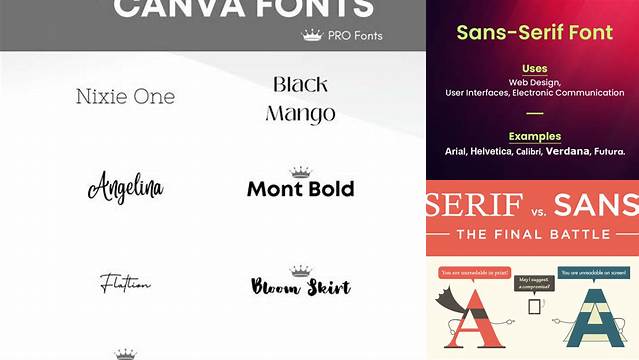
Sans Serif Font Examples: A Comprehensive Guide
Hey guys! Ever wondered about those sleek, modern-looking fonts that seem to be everywhere these days? Chances are, you're thinking of sans serif fonts. These fonts, characterized by their lack of serifs (the small decorative strokes at the end of letters), are a staple in modern design, and for good reason! They offer a clean, minimalist aesthetic that's perfect for a wide range of applications. In this comprehensive guide, we'll dive deep into the world of sans serif fonts, exploring their history, characteristics, and some standout examples that you can use in your own projects. So, buckle up and get ready to discover the power of simplicity in typography!
What Exactly Are Sans Serif Fonts?
Let's start with the basics. Sans serif fonts, as the name suggests (from the French “sans,” meaning “without”), are typefaces that do not have the small extending features called “serifs” at the end of strokes. This is in contrast to serif fonts, which do have these little embellishments. Sans serif fonts are often perceived as cleaner, more modern, and more legible on screens, making them a popular choice for digital interfaces and displays. Their simplicity lends them a contemporary feel, making them ideal for brands aiming for a fresh and approachable image. The absence of serifs also contributes to a more uniform stroke weight throughout the letterforms, enhancing readability, especially at smaller sizes or on low-resolution screens. The history of sans serif fonts is relatively recent compared to serif fonts, with their popularity surging in the 20th century alongside the rise of modernism and functional design. Think about it: from the signage in airports to the text on your smartphone, sans serif fonts are all around us, quietly shaping our visual experience.
The History and Evolution of Sans Serif Fonts
The journey of sans serif fonts is a fascinating one, deeply intertwined with the evolution of typography and design. While serif fonts have a rich history stretching back centuries, sans serif fonts are a relatively modern invention. The first commercially available sans serif typeface, known as Akzidenz-Grotesk, emerged in the late 19th century. However, it wasn't until the 20th century that sans serif fonts truly took off, fueled by the Bauhaus movement and the rise of modernist design principles. Bauhaus, with its emphasis on simplicity, functionality, and geometric forms, championed sans serif typefaces as the epitome of modern typography. Designers like Herbert Bayer and Paul Renner (creator of Futura) played pivotal roles in popularizing sans serif fonts and establishing their place in the design world. The clean lines and unadorned forms of sans serif typefaces perfectly complemented the modernist aesthetic, which valued clarity and efficiency above all else. As technology advanced, the digital age further cemented the importance of sans serif fonts. Their legibility on screens made them ideal for websites, apps, and other digital interfaces. Today, sans serif fonts are a cornerstone of contemporary design, a testament to their enduring appeal and versatility.
Key Characteristics of Sans Serif Fonts
What exactly makes sans serif fonts so distinctive? The most obvious characteristic, of course, is the absence of serifs. But there's more to it than that! Sans serif fonts often feature a more uniform stroke weight compared to serif fonts, where the lines can vary in thickness. This gives them a cleaner, more consistent appearance. Additionally, sans serif fonts tend to have a more geometric and streamlined letterform, contributing to their modern aesthetic. The x-height (the height of the lowercase “x”) is often larger in sans serif typefaces, which can improve readability, particularly at smaller sizes. The spacing between letters and words is also carefully considered in sans serif fonts to ensure optimal clarity and visual harmony. Different sans serif fonts can have distinct personalities, ranging from the geometric precision of Futura to the humanist warmth of Helvetica. Understanding these characteristics can help you choose the right sans serif typeface for your specific project and desired aesthetic.
Popular Sans Serif Font Families
Alright, let's dive into some specific examples! The world of sans serif fonts is vast and varied, with countless typefaces to choose from. However, some families have achieved iconic status and are widely used across various design disciplines. Helvetica, perhaps the most famous sans serif of all time, is renowned for its neutrality and versatility. Arial, a common alternative to Helvetica, is another widely used option. Futura, with its geometric forms, exudes a sense of modernity and precision. Open Sans, a humanist sans serif, is known for its readability on screens. Lato, another popular choice, offers a warm and friendly feel. These are just a few of the many outstanding sans serif fonts available. Each typeface has its own unique personality and characteristics, making it suitable for different applications. Exploring these popular families is a great way to start building your typographic toolkit.
Helvetica: The King of Sans Serif
No discussion of sans serif fonts would be complete without a deep dive into Helvetica. Often hailed as the “king” of sans serifs, Helvetica is arguably the most recognizable and widely used typeface in the world. Developed in 1957 by Swiss typeface designer Max Miedinger, Helvetica's clean, neutral, and highly legible design quickly made it a favorite among designers. Its versatility is unmatched, making it suitable for everything from corporate branding to signage systems. Major brands like BMW, American Airlines, and Panasonic have all embraced Helvetica, a testament to its enduring appeal and timeless quality. However, Helvetica's ubiquity has also made it a subject of debate. Some designers argue that its neutrality can lead to a lack of personality, while others champion its clarity and efficiency. Regardless of your stance, there's no denying Helvetica's significant impact on the world of typography and design. Studying Helvetica is like studying the fundamentals of sans serif font design itself. It provides a solid foundation for understanding the principles of clean lines, balanced proportions, and optimal readability.
Arial: The Ubiquitous Alternative to Helvetica
Arial is a sans serif font that often gets compared to Helvetica, and for good reason! In fact, it's often seen as a kind of doppelganger to the famous Swiss typeface. Arial was designed in 1982 by Patricia Saunders and Robin Nicholas for Monotype, and it was specifically created to be a metric compatible alternative to Helvetica for early computer systems. This means that Arial was designed to take up roughly the same amount of space as Helvetica when used in documents, which was a big deal back in the day when memory and storage were limited. While Arial shares many visual similarities with Helvetica – both are clean, neutral sans serifs – there are some subtle differences that typography enthusiasts can spot. For example, Arial's strokes are a bit thicker, and the terminals (the ends of the strokes) are often cut off at a more severe angle. Whether you prefer Helvetica or Arial is often a matter of personal taste, but it's important to be aware of the nuances between these two ubiquitous sans serif fonts.
Futura: The Geometric Sans Serif Masterpiece
If you're looking for a sans serif font that exudes modernity and geometric precision, look no further than Futura. Designed in 1927 by Paul Renner, Futura is a typeface based on geometric shapes, particularly the circle, square, and triangle. This gives it a distinctly architectural and streamlined appearance, making it a popular choice for brands that want to project a sense of innovation and sophistication. Futura's clean lines and minimalist aesthetic made it a favorite of the Bauhaus movement, and it has been used extensively in everything from corporate logos to movie posters. Think of brands like Volkswagen and Nike – they've both used Futura to great effect. One of the things that makes Futura so striking is its consistent stroke weight and its emphasis on perfect geometric forms. This gives it a very clean and modern feel, but it can also make it feel a bit cold or impersonal in some contexts. However, when used thoughtfully, Futura can be a powerful tool for creating visually compelling and memorable designs. Exploring sans serif fonts like Futura helps to appreciate the diversity within the style.
Open Sans: A Friendly and Legible Choice
Open Sans is a sans serif font designed by Steve Matteson of Ascender Fonts. Released in 2011, it's a humanist sans serif font designed with readability in mind. This means it's exceptionally clear and easy to read, especially on screens. Open Sans has a slightly wider stance and a more open appearance than some other sans serifs, which contributes to its legibility. Its neutral but friendly appearance makes it a versatile choice for a wide range of applications, from websites and apps to print materials. One of the reasons Open Sans has become so popular is that it's a free and open-source font, meaning it can be used and distributed freely. This has made it a favorite among web developers and designers who are looking for a high-quality, readily available typeface. Open Sans is a great example of how sans serif fonts can be both functional and aesthetically pleasing. It's a workhorse typeface that gets the job done without sacrificing visual appeal. When considering sans serif fonts, Open Sans stands out as a reliable and approachable option.
Lato: A Warm and Approachable Sans Serif
Lato is a sans serif font designed by Łukasz Dziedzic, a Polish designer. Released in 2010, Lato has quickly become a popular choice for designers looking for a typeface that's both modern and approachable. The word "Lato" means "Summer" in Polish, and the font's warm and friendly personality reflects this. Lato has semi-rounded details, which give it a sense of warmth and humanity. It's also designed to be highly legible in a variety of sizes and weights, making it suitable for both body text and headlines. Like Open Sans, Lato is available under the Open Font License, meaning it's free to use and distribute. This has contributed to its widespread adoption. Lato strikes a nice balance between being contemporary and approachable, making it a versatile choice for a wide range of design projects. When exploring sans serif fonts, Lato is a great option to consider if you want a typeface with a bit of personality and warmth.
Other Notable Sans Serif Font Examples
Beyond the big names like Helvetica, Arial, Futura, Open Sans, and Lato, there's a whole world of other amazing sans serif fonts out there just waiting to be discovered! Exploring these lesser-known gems can help you find the perfect typeface for your unique project and give your designs a distinctive edge. Some notable examples include: Montserrat, a geometric sans serif inspired by the signage in the Montserrat neighborhood of Buenos Aires; Roboto, a modern and versatile sans serif developed by Google for the Android operating system; and Nunito, a rounded sans serif that exudes a friendly and approachable vibe. Each of these typefaces has its own unique personality and characteristics, making them suitable for different design applications. The key is to experiment and explore the vast landscape of sans serif fonts to find the ones that truly resonate with your vision. Don't be afraid to venture beyond the familiar and discover new typographic treasures!
Sans Serif vs. Serif Fonts: What's the Difference?
Okay, so we've talked a lot about sans serif fonts, but how do they stack up against their serif counterparts? The most obvious difference, as we've already discussed, is the presence or absence of serifs – those little decorative strokes at the ends of letters. But the differences go beyond mere aesthetics. Serif fonts are often associated with tradition, authority, and formality. They tend to have a more classic and elegant feel, making them popular choices for books, newspapers, and other print materials. Sans serif fonts, on the other hand, are generally perceived as more modern, clean, and minimalist. They're often favored for digital interfaces, websites, and branding that aims for a contemporary look. The choice between serif and sans serif ultimately depends on the specific project and the desired message. Consider the context, the target audience, and the overall tone you want to convey. Understanding the nuances between these two font categories is crucial for effective typography. When selecting sans serif fonts, it's helpful to compare them directly with serif options to make the best choice.
When to Use Sans Serif Fonts
So, when is it a good idea to reach for a sans serif font? Generally speaking, sans serif fonts are excellent choices for projects that require a modern, clean, and approachable aesthetic. They're particularly well-suited for digital interfaces, such as websites, apps, and presentations, where their legibility on screens is a major advantage. Sans serif fonts are also a popular choice for branding, especially for companies that want to project a sense of innovation, simplicity, and clarity. Think tech companies, startups, and modern businesses. In print, sans serif typefaces can work well for headlines, captions, and other short blocks of text. However, for large blocks of body text, serif fonts are often preferred due to their enhanced readability in printed form. Of course, these are just general guidelines, and there are always exceptions to the rule. The best way to decide when to use a sans serif is to experiment and see what works best for your specific project.
The Psychology of Sans Serif Fonts
Did you know that fonts can actually evoke certain emotions and associations? It's true! Typography plays a significant role in how a design is perceived, and sans serif fonts are no exception. Generally, sans serif fonts are associated with modernity, clarity, and efficiency. Their clean lines and minimalist forms project a sense of straightforwardness and trustworthiness. This is why they're often used by companies that want to convey a sense of innovation and professionalism. However, the specific emotions evoked by a sans serif can vary depending on the particular typeface. A geometric sans serif like Futura might feel more technical and precise, while a humanist sans serif like Open Sans might feel warmer and more approachable. Understanding the psychology of fonts can help you make more informed design choices and ensure that your typography aligns with your message and brand. When choosing sans serif fonts, consider the emotional impact you want to create.
Legibility and Readability of Sans Serif Fonts
One of the key advantages of sans serif fonts is their legibility, particularly on screens. Legibility refers to how easily individual letters can be distinguished from one another, while readability refers to how easily a block of text can be read and understood. Sans serif fonts often excel in legibility due to their clean, simple letterforms and consistent stroke weights. This makes them ideal for digital environments, where screen resolution can sometimes affect the clarity of text. However, readability is a more complex issue. While sans serif fonts can be highly legible, long blocks of text set in a sans serif typeface may not be as readable as the same text set in a serif font. This is because the serifs can help the eye track across the line of text. For this reason, it's important to consider the context and intended use when choosing a sans serif typeface. For short blocks of text, headlines, and digital interfaces, sans serif fonts are often an excellent choice. But for lengthy documents or books, a serif font may provide a more comfortable reading experience.
Pairing Sans Serif Fonts with Other Typefaces
Choosing a typeface is just the first step – knowing how to pair it with other fonts is crucial for creating visually harmonious and effective designs. Sans serif fonts are incredibly versatile and can be paired with a wide range of other typefaces, both serif and sans serif. One classic approach is to pair a sans serif headline with a serif body text. This creates a visual contrast that draws the eye to the headline while providing a comfortable reading experience for the body copy. Another option is to pair two different sans serif fonts together, perhaps using a bolder sans serif for headings and a lighter one for body text. This can create a sense of visual hierarchy and interest. When pairing fonts, it's important to consider the overall tone and personality you want to convey. Do the fonts complement each other? Do they create the right mood? Experimentation is key! Don't be afraid to try different combinations until you find the perfect pairing for your project. The art of pairing sans serif fonts with others is a key skill for any designer.
How to Choose the Right Sans Serif Font for Your Project
With so many sans serif fonts to choose from, how do you narrow down your options and select the perfect one for your project? Here are a few key factors to consider:
- The project's purpose: What is the font going to be used for? A website? A logo? A brochure? The intended use will influence your choice.
- The target audience: Who are you trying to reach? A youthful audience might respond well to a modern, geometric sans serif, while a more traditional audience might prefer a humanist sans serif.
- The brand personality: What kind of message do you want to convey? A luxury brand might opt for a sophisticated sans serif like Futura, while a friendly brand might choose Open Sans.
- Legibility and readability: How will the font perform in different sizes and contexts? Test it out to make sure it's legible and readable.
- Pairing: How will the font pair with other typefaces? Think about the overall typographic palette.
By considering these factors, you can make a more informed decision and choose a sans serif font that truly enhances your design.
The Role of Sans Serif Fonts in Web Design
Sans serif fonts play a pivotal role in web design. Their clean, legible nature makes them a natural fit for on-screen reading. The digital realm favors clarity and ease of use, and sans serifs often provide just that. When designing websites, considering the user experience is paramount, and typography is a key element. Sans serif fonts generally render well across different browsers and devices, ensuring a consistent look and feel for all users. This is especially crucial in today's multi-device world. Many popular websites and web applications utilize sans serif typefaces for their body text, headings, and navigation elements. From minimalist websites to content-heavy blogs, sans serif fonts offer a versatile solution for web typography. However, it's essential to choose a sans serif that suits the website's overall design and purpose. A clean, modern sans serif might be perfect for a tech company's website, while a more humanist sans serif could be a better fit for a non-profit organization. Selecting the right sans serif fonts can make a significant impact on the success of your website.
Using Sans Serif Fonts in Branding and Logo Design
In the world of branding and logo design, sans serif fonts have become a go-to choice for many companies. Their clean, modern aesthetic often conveys a sense of innovation, sophistication, and approachability. A well-chosen sans serif typeface can be a powerful tool for communicating a brand's values and personality. Many iconic logos feature sans serif fonts, from tech giants like Google and Apple to fashion brands like Calvin Klein and Adidas. These logos demonstrate the versatility of sans serif fonts in branding. When designing a logo, it's crucial to consider the font's legibility, scalability, and overall impact. A sans serif logo should be easily recognizable and memorable, whether it's displayed on a business card or a billboard. The choice of sans serif can also influence how a brand is perceived. A geometric sans serif might convey a sense of precision and efficiency, while a humanist sans serif could suggest warmth and creativity. Choosing the right sans serif fonts is a critical part of creating a strong brand identity.
The Future of Sans Serif Fonts: Trends and Innovations
The world of typography is constantly evolving, and sans serif fonts are no exception. As technology advances and design trends shift, we can expect to see new and exciting innovations in the realm of sans serif typefaces. One trend is the increasing popularity of variable fonts, which allow for greater flexibility and customization. Variable fonts can have multiple axes of variation, such as weight, width, and slant, allowing designers to fine-tune the typeface to their exact needs. Another trend is the continued exploration of geometric and minimalist sans serifs, reflecting a desire for clean, modern aesthetics. We're also seeing a growing interest in humanist sans serif fonts that balance clarity with a sense of warmth and personality. The future of sans serif fonts is likely to be shaped by both technological advancements and evolving design preferences. As designers continue to push the boundaries of typography, we can expect to see a diverse and dynamic landscape of sans serif typefaces.
Common Mistakes to Avoid When Using Sans Serif Fonts
While sans serif fonts are incredibly versatile, there are some common pitfalls to avoid. One mistake is overusing a single sans serif typeface across an entire design. This can lead to a monotonous and visually uninteresting result. It's important to create visual hierarchy by using different weights, sizes, and styles of fonts. Another mistake is choosing a sans serif that is too generic or lacks personality. With so many great sans serif typefaces available, there's no need to settle for a bland option. Sans serif fonts also need adequate spacing to maintain legibility. Avoid setting the type too tightly, as this can make it difficult to read. Conversely, too much spacing can make the text feel disjointed. Another common mistake is not considering the context of use. A sans serif font that looks great on screen might not be the best choice for a printed document. By avoiding these common mistakes, you can ensure that you're using sans serif typefaces effectively.
Resources for Finding and Using Sans Serif Fonts
If you're ready to start exploring the world of sans serif fonts, there are plenty of resources available to help you find and use them effectively. Font foundries like MyFonts, Adobe Fonts, and Hoefler&Co offer a wide selection of high-quality typefaces. Websites like Google Fonts and Font Squirrel provide access to free sans serif fonts that can be used in both personal and commercial projects. Online typography tutorials and articles can help you learn about the principles of typography and how to choose the right sans serif fonts for your needs. Software like Adobe Photoshop, Illustrator, and InDesign offer powerful tools for working with typefaces. Don't be afraid to experiment and explore! The more you work with sans serif fonts, the better you'll become at using them effectively. Finding the right sans serif fonts is a journey, and these resources can help you along the way.
The Importance of Kerning and Leading in Sans Serif Typography
When working with sans serif fonts, two crucial aspects of typography come into play: kerning and leading. Kerning refers to the adjustment of space between individual letter pairs, while leading (pronounced “led-ding”) refers to the vertical space between lines of text. Proper kerning ensures that the letters in a word appear evenly spaced and visually balanced. Sans serif fonts, with their uniform stroke weights, can sometimes require more careful kerning than serif fonts. Pay attention to letter pairs like "AV," "WA," and "To," where the natural spacing may need adjustment. Leading is equally important for readability. Adequate leading allows the eye to easily track from one line of text to the next. Too little leading can make the text feel cramped, while too much can make it feel disjointed. The optimal leading often depends on the typeface, font size, and line length. Mastering kerning and leading is essential for creating professional and legible sans serif fonts typography.
Exploring the Different Weights and Styles of Sans Serif Fonts
Sans serif fonts come in a variety of weights and styles, each with its own unique personality and impact. Font weight refers to the thickness of the strokes, ranging from light to bold. A light sans serif can feel delicate and airy, while a bold sans serif commands attention and conveys strength. Font styles include variations like italics, condensed, and extended. Italics add emphasis and can create a sense of elegance or informality. Condensed sans serifs are narrower, allowing you to fit more text in a limited space, while extended sans serifs are wider and can create a more dramatic effect. When choosing a sans serif font, consider the different weights and styles available. A typeface family with a wide range of options gives you greater flexibility and control over your typography. You can use different weights and styles to create visual hierarchy, emphasize key information, and add visual interest to your designs. Exploring the full range of sans serif fonts styles is crucial for effective communication.
How Sans Serif Fonts Contribute to Visual Hierarchy
Visual hierarchy is the arrangement of design elements to guide the viewer's eye and emphasize important information. Sans serif fonts can be powerful tools for creating visual hierarchy in your designs. By using different sizes, weights, and styles of sans serif typefaces, you can establish a clear order of importance. For example, you might use a large, bold sans serif for headlines, a smaller, lighter sans serif for subheadings, and a regular-weight sans serif for body text. This creates a clear visual distinction between different levels of information. Sans serif fonts can also be combined with other typographic techniques, such as color, spacing, and alignment, to further enhance visual hierarchy. A well-designed visual hierarchy makes it easier for viewers to scan and understand your content. When using sans serif fonts, think carefully about how you can use them to create a clear and effective visual structure.
The Use of Negative Space in Sans Serif Typography
Negative space, also known as white space, is the empty area around and between design elements. It's a crucial element in any design, and it plays a significant role in sans serif fonts typography. Adequate negative space around letters, words, and lines of text can significantly improve readability and visual appeal. Sans serif fonts, with their clean, simple forms, often benefit from generous negative space. This allows the letters to breathe and prevents the text from feeling cramped or overwhelming. When setting type in a sans serif typeface, pay attention to the letter spacing, word spacing, and line height. Adjust these elements to create a comfortable reading experience. Negative space can also be used to create visual emphasis and draw attention to specific words or phrases. By strategically using negative space, you can enhance the impact of your sans serif fonts typography and create more visually engaging designs.
Creating a Mood with Sans Serif Fonts: Examples and Techniques
As we've discussed, sans serif fonts can evoke a wide range of emotions and associations. By carefully choosing a sans serif typeface, you can create a specific mood or atmosphere in your designs. For example, a geometric sans serif like Futura might convey a sense of modernity, precision, and efficiency. This type of font is often used for technology companies and brands that want to project a cutting-edge image. A humanist sans serif font, like Open Sans or Lato, can create a more friendly and approachable mood. These typefaces have a slightly warmer and more organic feel, making them suitable for brands that want to connect with their audience on a personal level. To create a specific mood with sans serif fonts, consider the font's weight, style, and overall personality. Experiment with different combinations of typefaces, colors, and layouts to achieve the desired effect. The art of creating mood with sans serif typography is about understanding the nuances of each typeface.
The Impact of Screen Resolution on Sans Serif Font Rendering
In the digital age, the way a sans serif font renders on screen is a crucial consideration. Screen resolution, measured in pixels per inch (PPI), can significantly impact the clarity and legibility of typefaces. Lower-resolution screens can sometimes cause sans serif fonts to appear blurry or pixelated, particularly at smaller sizes. This is because the fine details of the letterforms may not be rendered accurately. Higher-resolution screens, on the other hand, offer a much sharper and clearer display, allowing sans serif fonts to render more faithfully. When designing for the web or other digital media, it's essential to choose sans serif typefaces that are well-suited for screen rendering. Some fonts are specifically designed to perform well on screens, with optimized letterforms and spacing. Testing your designs on different devices and screen resolutions is also a good practice to ensure optimal readability. Understanding the impact of screen resolution on sans serif fonts rendering helps create a better user experience.
Sans Serif Fonts in Print vs. Digital Media: Best Practices
While sans serif fonts are widely used in both print and digital media, there are some best practices to keep in mind for each context. In print, sans serif fonts can work well for headlines, subheadings, and short blocks of text. However, for lengthy body text, serif fonts are often preferred due to their enhanced readability in printed form. The serifs help guide the eye across the page, making it easier to read long passages. In digital media, sans serif fonts are generally an excellent choice for both headlines and body text. Their clean, simple letterforms render well on screens, and their legibility is often superior to serif fonts in digital environments. When designing for the web, consider using web-safe sans serif fonts that are widely available and render consistently across different browsers and devices. Also, pay attention to the font size and line height to ensure optimal readability on screen. Adapting your approach to sans serif fonts in print vs digital ensures the best results.
Advanced Techniques for Working with Sans Serif Fonts
For designers looking to take their sans serif fonts typography to the next level, there are several advanced techniques to explore. One technique is using stylistic alternates, which are alternate versions of certain letters or characters within a typeface. Stylistic alternates can add a touch of personality or visual interest to your designs. Another technique is using ligatures, which are special characters that combine two or more letters into a single glyph. Ligatures can improve readability and create a more elegant look. Microtypography, the art of fine-tuning the details of typography, can also significantly enhance the appearance of sans serif fonts. This includes adjusting kerning, tracking, and word spacing to achieve optimal visual balance and readability. Exploring these advanced techniques can help you create truly exceptional sans serif fonts typography and elevate your designs.
Common Misconceptions About Sans Serif Fonts Debunked
There are several common misconceptions about sans serif fonts that are worth debunking. One misconception is that sans serif fonts are always modern and minimalist. While it's true that many sans serifs have a contemporary feel, there are also humanist and more traditional sans serif typefaces. Another misconception is that sans serif fonts are only suitable for digital media. While they excel on screens, sans serif typefaces can also be used effectively in print, especially for headlines and short blocks of text. Another misconception is that all sans serif fonts are created equal. In reality, there's a vast range of quality and design among sans serif typefaces. Some are well-designed and highly legible, while others are poorly crafted and can detract from the overall design. By debunking these misconceptions, we can gain a more nuanced understanding of the versatility and capabilities of sans serif fonts.
The Ethical Considerations of Using Sans Serif Fonts
In the world of typography, ethical considerations are becoming increasingly important. When using sans serif fonts, it's essential to be mindful of accessibility, readability, and cultural appropriateness. Accessibility refers to designing for people with disabilities, including those with visual impairments. Choosing sans serif fonts with good legibility and contrast is crucial for ensuring that your designs are accessible to everyone. Readability, as we've discussed, is another key ethical consideration. Select sans serif fonts that are easy to read in the intended context, and avoid using overly decorative or unconventional typefaces. Cultural appropriateness is about being sensitive to cultural norms and preferences. A font that is well-received in one culture might not be appropriate in another. By considering these ethical factors, you can use sans serif fonts in a responsible and inclusive manner. Ethical font choices reflect a commitment to good design practices.
Case Studies: Successful Uses of Sans Serif Fonts in Design
To further illustrate the versatility and impact of sans serif fonts, let's examine some case studies of successful uses in design. The logo for the tech giant Google, for example, uses a custom-designed sans serif typeface that conveys a sense of innovation and approachability. The branding for the popular streaming service Spotify features a bold, geometric sans serif that communicates a modern and dynamic image. The website for the design firm Pentagram uses a clean and elegant sans serif font for its body text, creating a sophisticated and professional look. These case studies demonstrate how sans serif fonts can be used effectively in a variety of design contexts, from logos and branding to websites and print materials. By studying these examples, we can gain valuable insights into the power of sans serif typography. Analyzing these sans serif fonts success stories can inspire your own designs.
The Ultimate Guide to Mastering Sans Serif Fonts
So, there you have it! A comprehensive guide to the world of sans serif fonts. We've covered everything from their history and characteristics to their use in web design, branding, and beyond. By now, you should have a solid understanding of the power and versatility of sans serif fonts. Remember, mastering sans serif typography is an ongoing journey. Keep exploring new typefaces, experimenting with different techniques, and refining your eye for detail. The more you work with sans serif fonts, the better you'll become at using them to create stunning and effective designs. This ultimate guide is just the beginning. Continue to learn and grow in your understanding of sans serif fonts to become a true typography master!